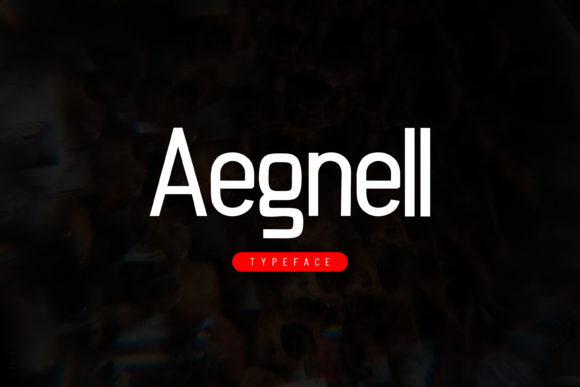
Introducing Aegnell Font: A Typographic Masterpiece for the Discerning Designer
In a world of digital expression, your words have the power to captivate, inspire, and ignite the imagination. Aegnell Font, a modern and refreshingly cool lettered sans serif masterpiece from the creative minds at Design Stag, is your gateway to unlocking the full potential of typography. This font family is not just a collection of letters; it's an arsenal of creative possibilities, ready to transform your designs into visually stunning works of art.
Experience the Elegance of Simplicity:
Aegnell Font's minimalist design philosophy embraces the beauty of clean lines, open spaces, and effortless legibility. Its meticulously crafted characters exude a sense of sophistication and poise, making it the perfect choice for designs that demand attention without overpowering the message. Whether you're creating elegant wedding invitations, sleek business cards, or captivating social media posts, Aegnell Font will elevate your words and make them shine.
Explore a World of Creative Possibilities:
With Aegnell Font at your disposal, the possibilities are boundless. Unleash your creativity and embark on a journey of design exploration. Craft eye-catching headlines that demand attention, design logos that leave a lasting impression, or create stunning posters that ignite the imagination. Aegnell Font's versatility knows no limits, making it the perfect companion for designers who crave the freedom to express themselves fully.
Capture Hearts with Every Stroke:
Aegnell Font possesses an undeniable emotional allure that captivates audiences and leaves a lasting impression. Its carefully designed curves and angles evoke a sense of warmth and approachability, making it ideal for designs that aim to connect with the human heart. Whether you're creating heartwarming personal letters, heartfelt marketing campaigns, or simply expressing your creativity, Aegnell Font will infuse your designs with a touch of magic that resonates with your audience.
Embrace the Power of Versatility:
Aegnell Font is a chameleon of the design world, effortlessly adapting to a myriad of creative projects. Its adaptability shines in both digital and print applications, making it the perfect choice for web design, graphic design, branding, and more. Whether you're working on a sleek website, a captivating brochure, or a visually stunning presentation, Aegnell Font will seamlessly integrate into your design, enhancing it with its understated elegance.
Unlock Your Creative Potential:
With Aegnell Font as your creative ally, you'll discover a world of untapped potential, where every design project becomes an opportunity to showcase your unique style and vision. Its intuitive design and user-friendly nature make it accessible to designers of all skill levels, empowering you to create stunning designs with ease. Embrace the limitless possibilities of Aegnell Font and unleash your creativity like never before.